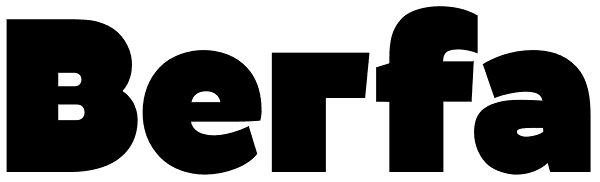
Berfa
Berfa is an ultra-black display sans with a grounded temperament and a warm heart. Stern but fair, she’s remarkably agile for her size, ideal for any occasion calling for weighty headlines and a strong character. Berfa also has a quirkier side...